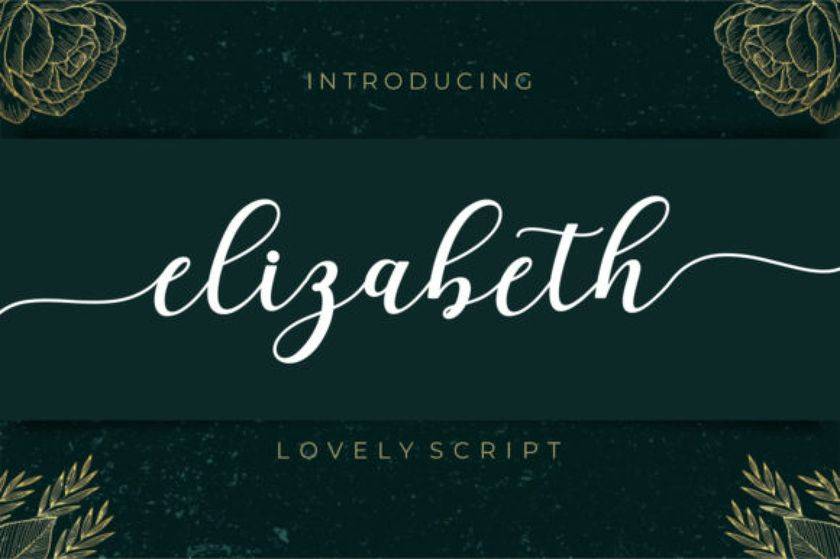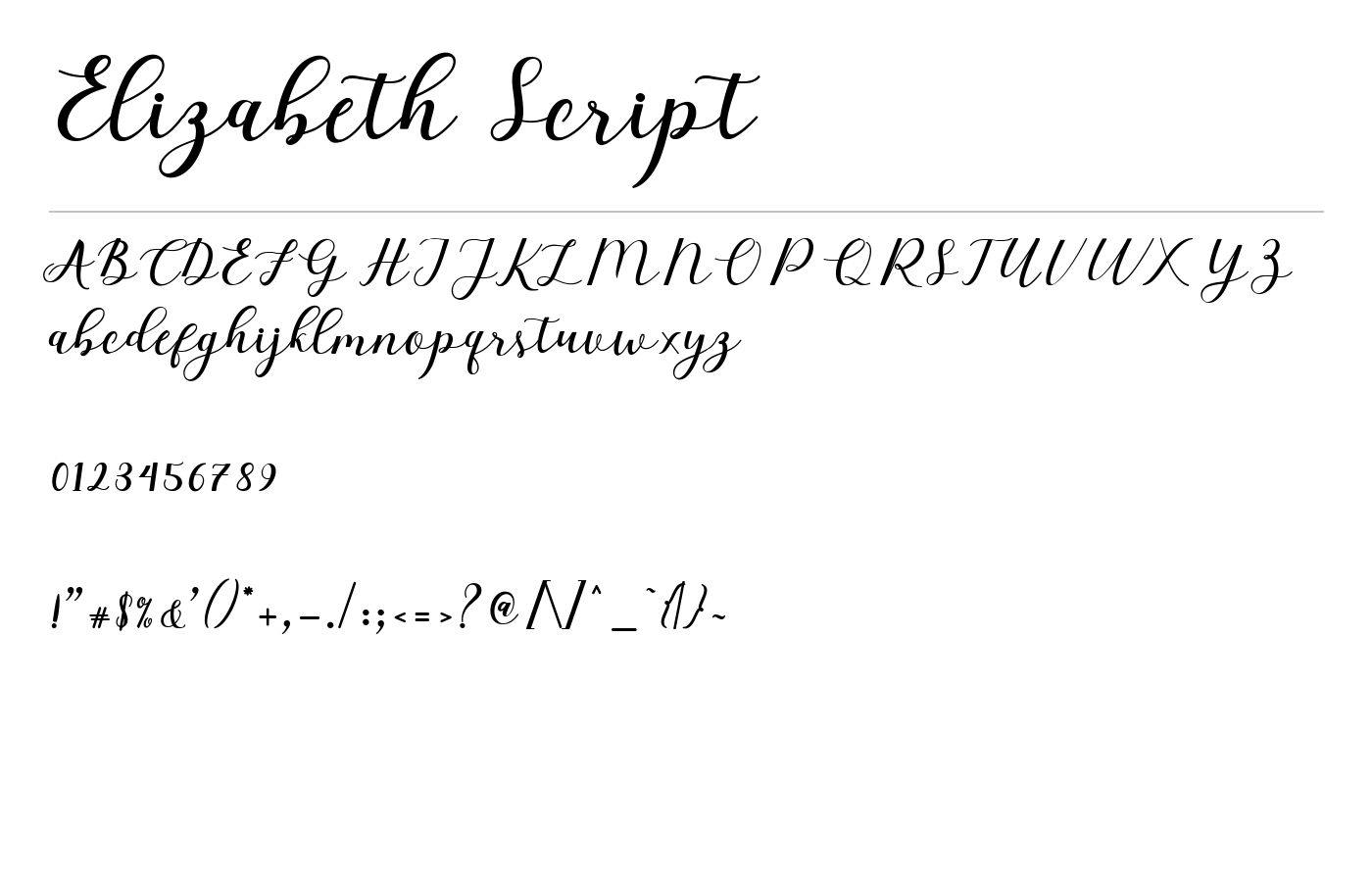
Elizabeth Font is an elegant, flowing script typeface with delicate strokes and a graceful, calligraphic style that evokes a sense of sophistication and charm. Its light weight and refined letterforms make it ideal for wedding invitations, luxury branding, and decorative headlines where a personal, stylish touch is desired. This font’s fluid curves and artistic flair bring warmth and elegance to any design needing a refined yet approachable feel.
Elizabeth Font
About Elizabeth Font
| Font family | Elizabeth Font |
| Designer | Creative Fabrica |